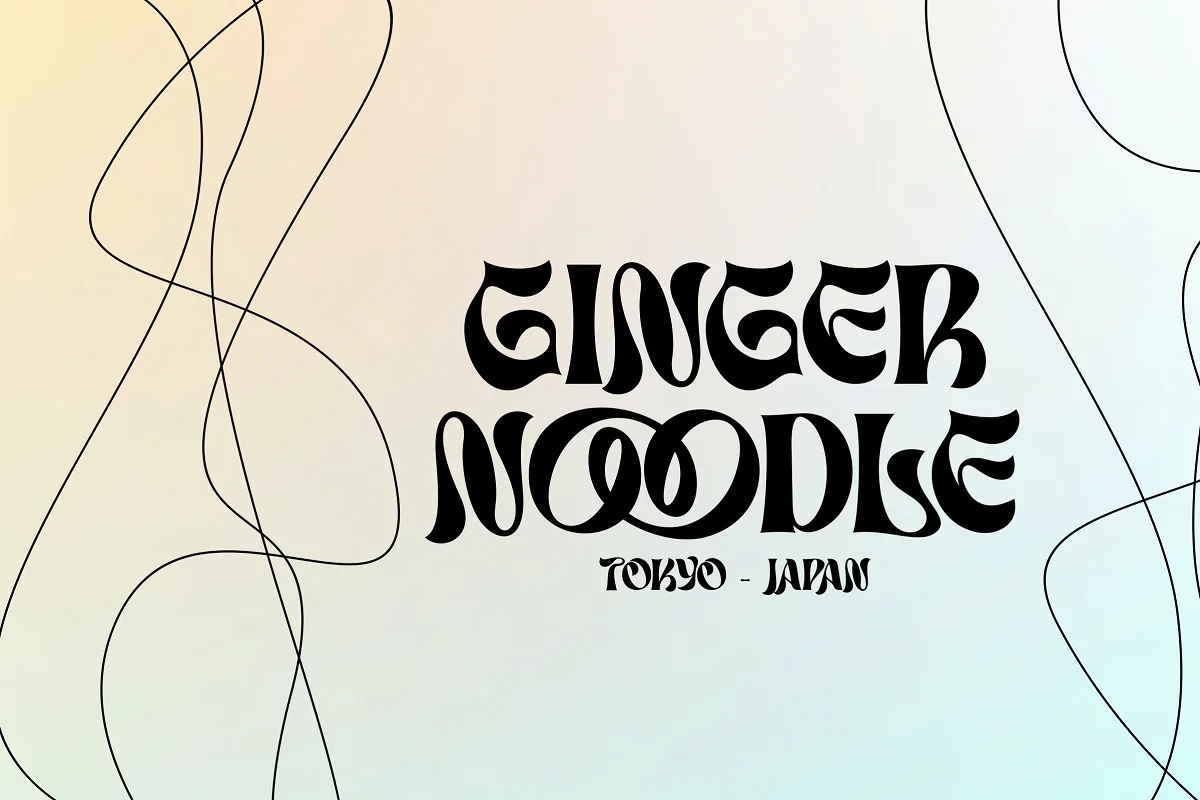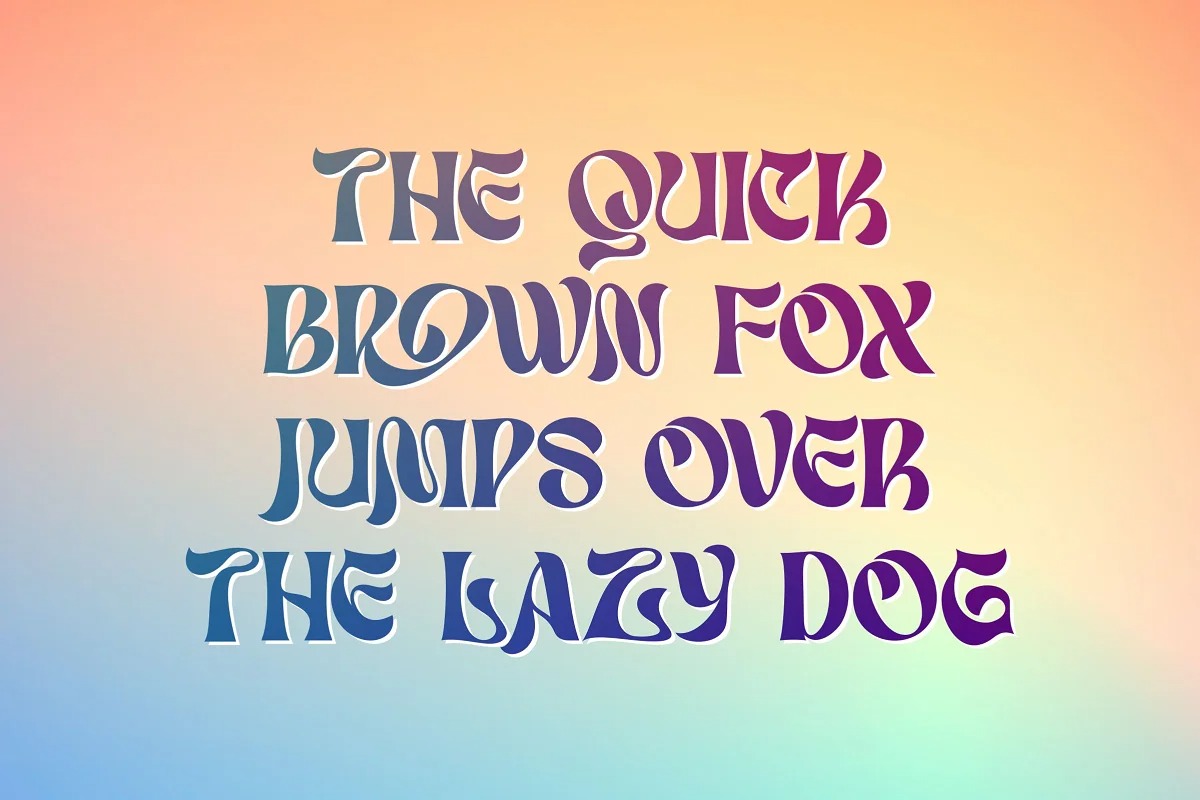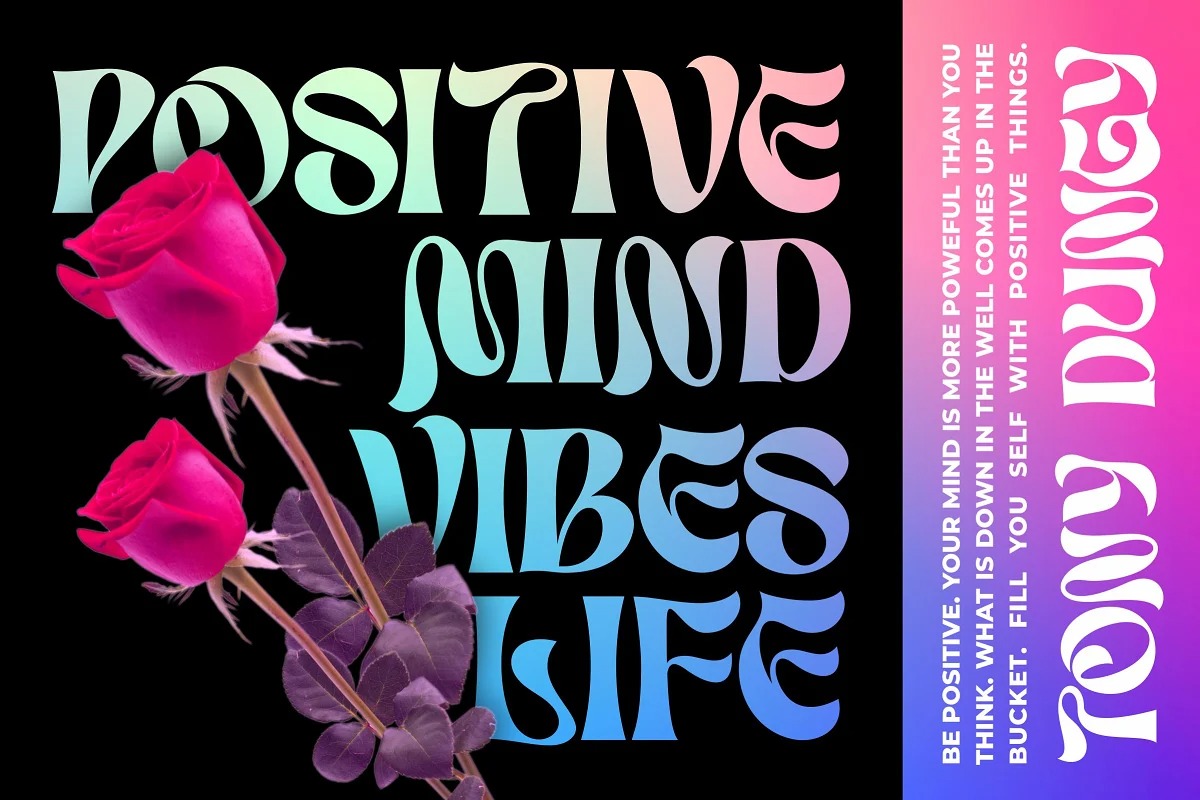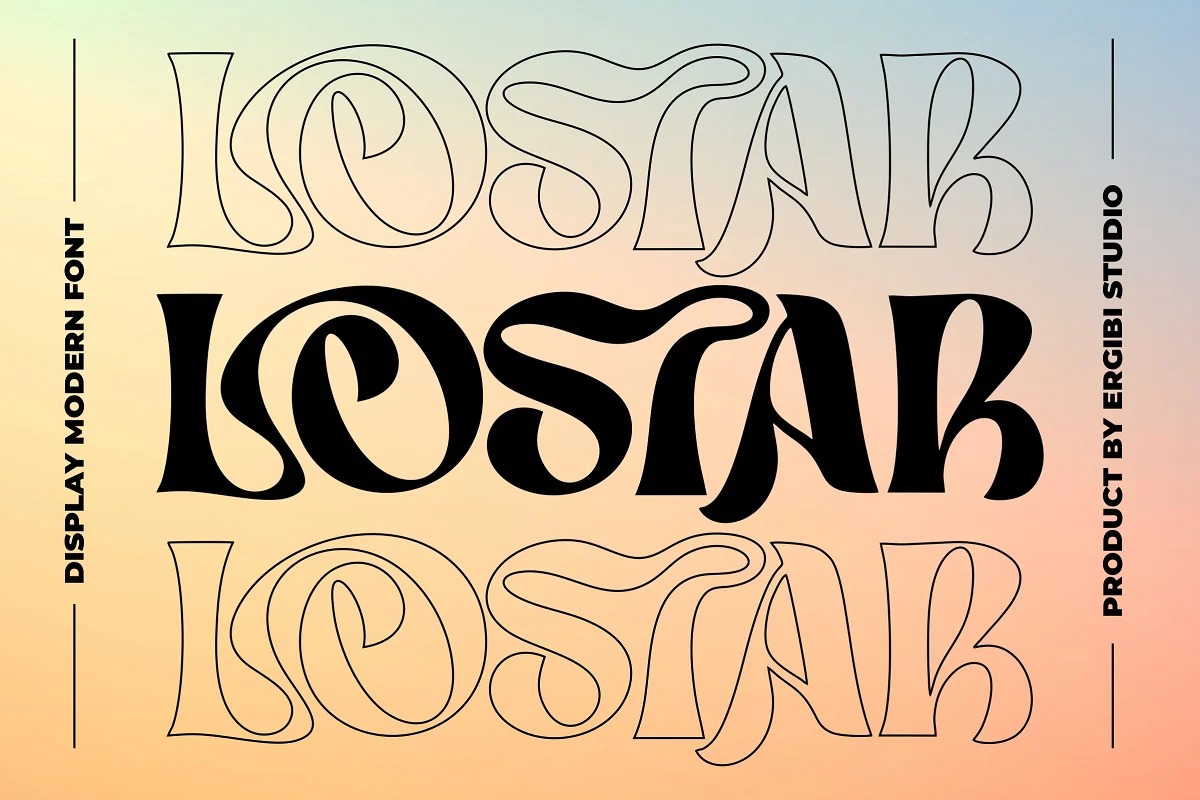
Lostar Font
Lostar Serif Font is a semi serif decorative font manufactured by  ErgibiStudio. This font has a beautiful and aesthetic look. The unique ligatures on serif makes this typeface cool and stands out rather than the regular serif font, perfectly for headlines, logos, posters, packaging, T-shirts,coffee shops, restaurants, magazine’s headers, signs or gift/post cards,cafe’s and weddings or any type of advertising purpose.